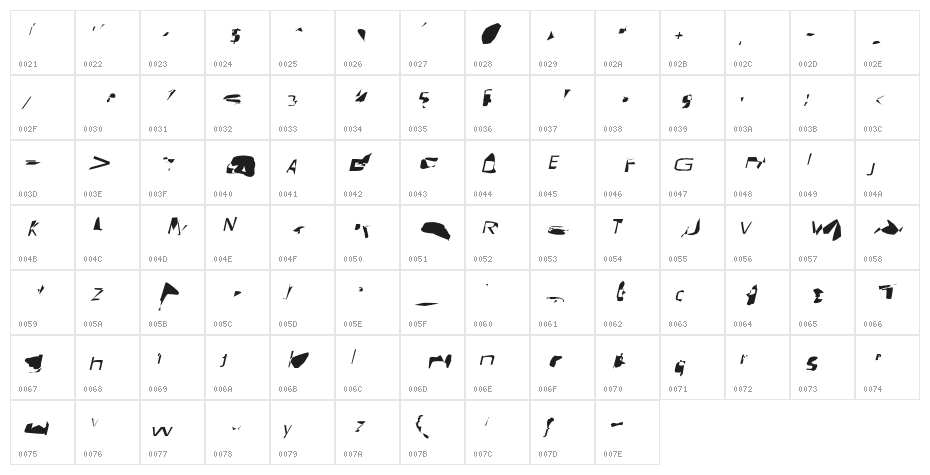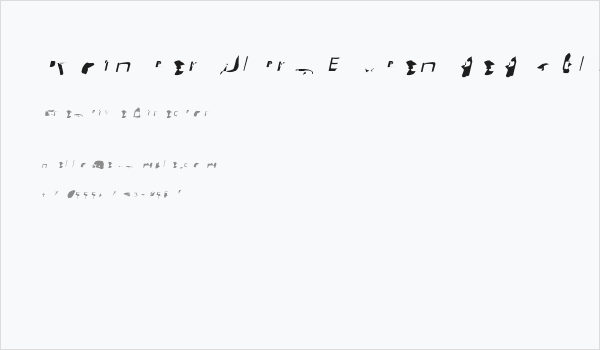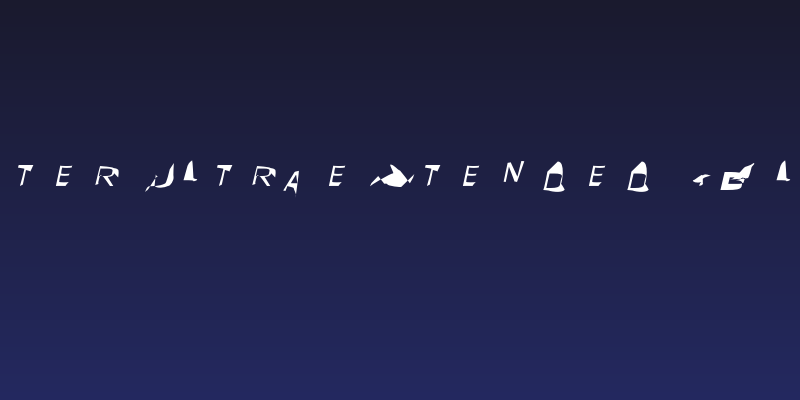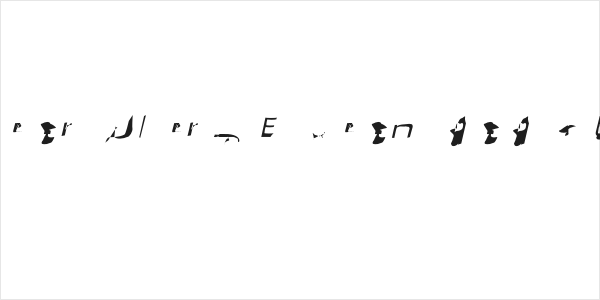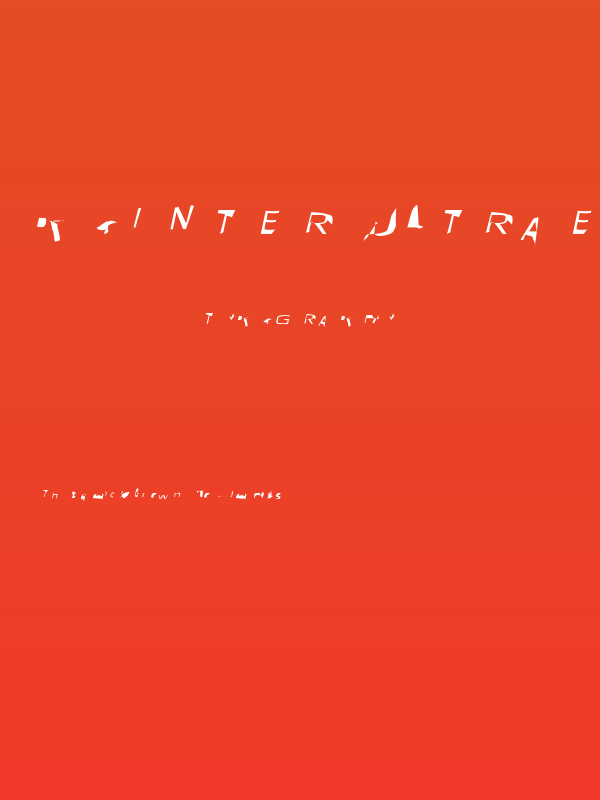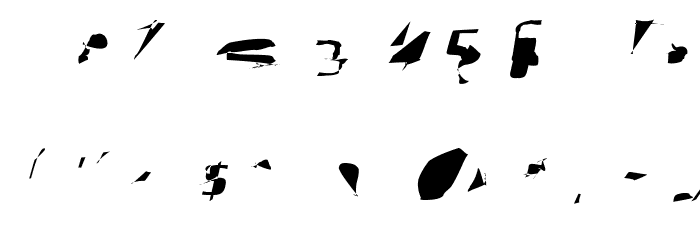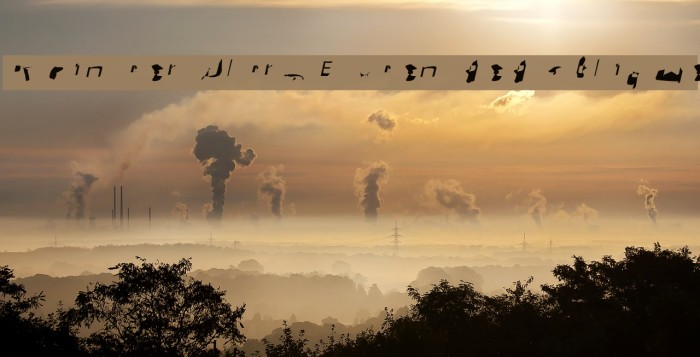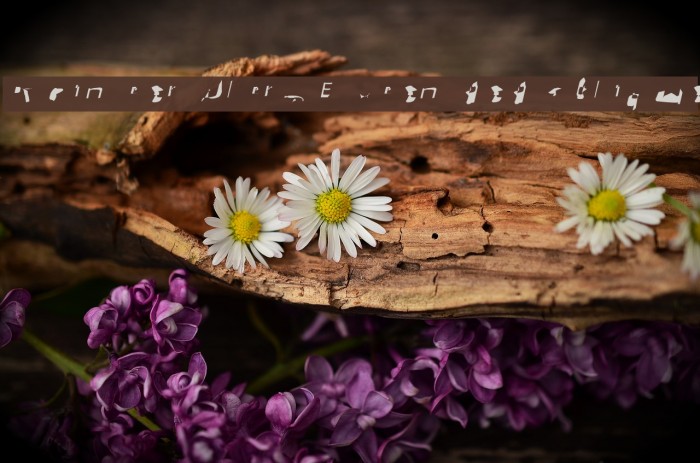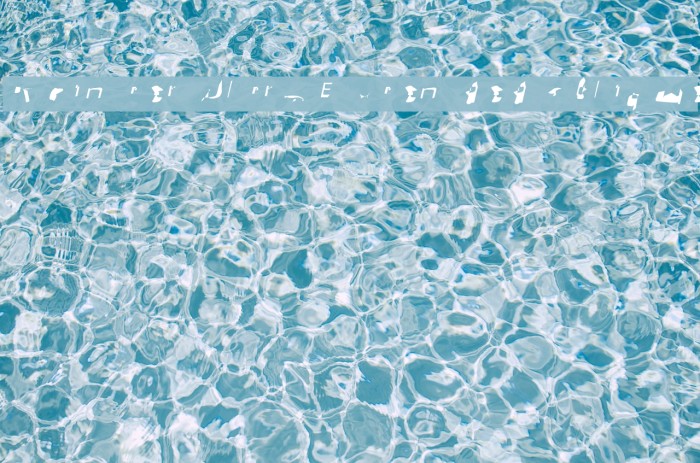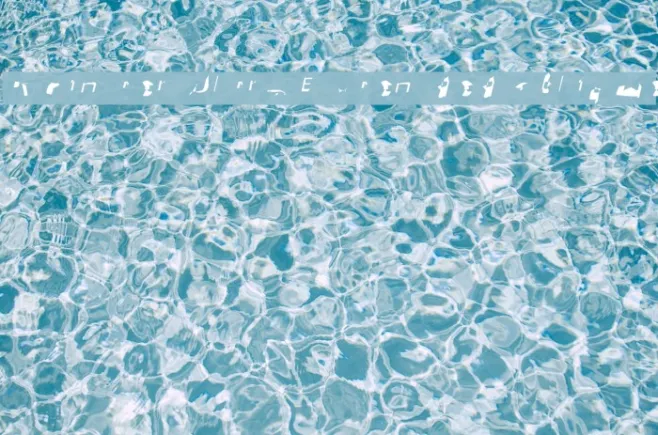
Pointer UltraExtended Oblique Font
Pointer UltraExtended Oblique Description
This font exhibits a highly abstract and fragmented design, characterized by its ultra-extended and oblique style. The characters are heavily distorted, creating a chaotic and dynamic appearance. Each letterform is unique, with varying degrees of fragmentation and angularity. The font's unconventional style makes it stand out, with a strong emphasis on artistic expression rather than readability. The overall look is modern and avant-garde, suitable for projects that require a bold and experimental aesthetic.
| Overall Style | Modern, Avant-garde |
| Use Case | Logos, Posters, Album Covers |
| Proposed Projects | Ideal for experimental art projects, avant-garde posters, or album covers where a bold, artistic statement is desired. |